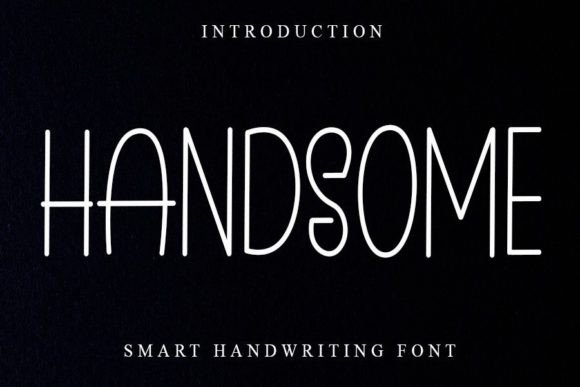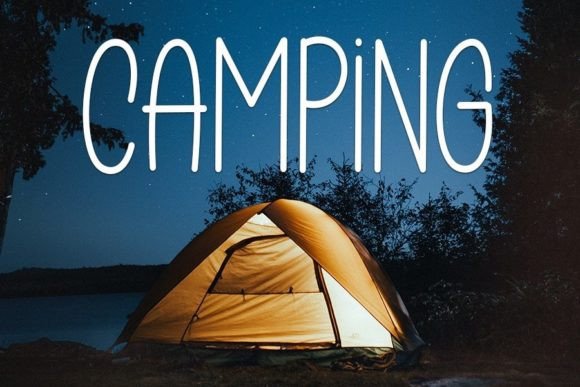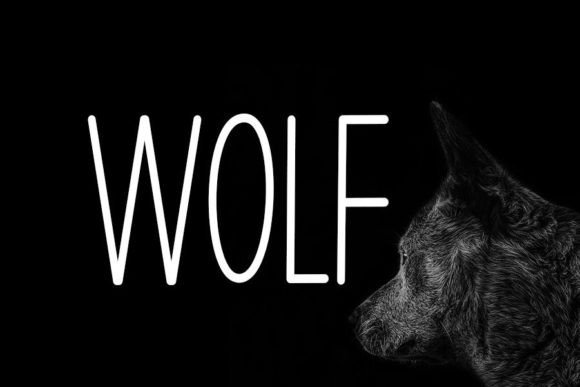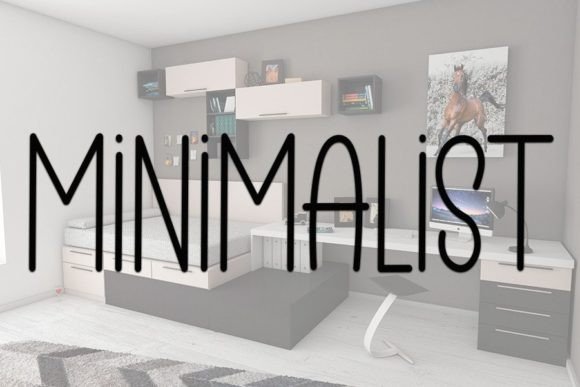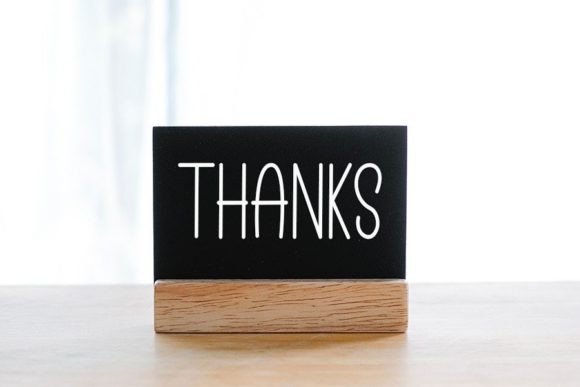
Handsome Font
About Handsome Font
HANDSOME makes a bold entrance as a neat and beautiful handwritten font, characterized by an elegant touch that renders it ideal for a variety of creative projects. Its distinct and timeless style is crafted to capture admiration, inviting you to fall in love with its unique charm and apply it to create spectacular designs.
The neatness of HANDSOME contributes to its clarity and readability, ensuring that your content is presented with precision and legibility. This quality makes it suitable for a broad spectrum of applications, ranging from personal projects to professional designs where a clean and refined aesthetic is desired.
The elegant touch in HANDSOME adds a layer of sophistication, elevating it beyond a mere typeface. This touch of elegance makes it a fitting choice for projects that demand a refined and stylish appearance. Whether used in branding, invitations, or other design endeavors, HANDSOME brings a timeless style that exudes sophistication.
HANDSOME’s handwritten charm serves as an asset, particularly for projects requiring a blend of personalization and professionalism. The font’s versatility allows it to adapt seamlessly to different themes and contexts, making it a reliable and visually appealing option for various design applications.
In essence, HANDSOME is more than just a font; it’s a design tool that marries neatness, elegance, and a timeless style. Its distinct qualities make it an excellent choice for those looking to create visually striking and memorable designs across a spectrum of creative projects. Fall in love with the distinct and timeless charm of HANDSOME as you infuse your creations with a touch of elegance and sophistication.